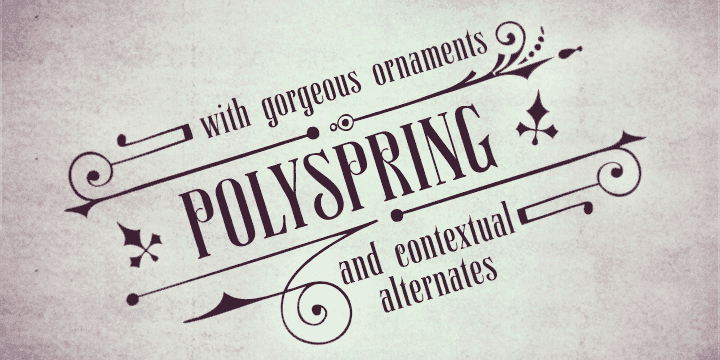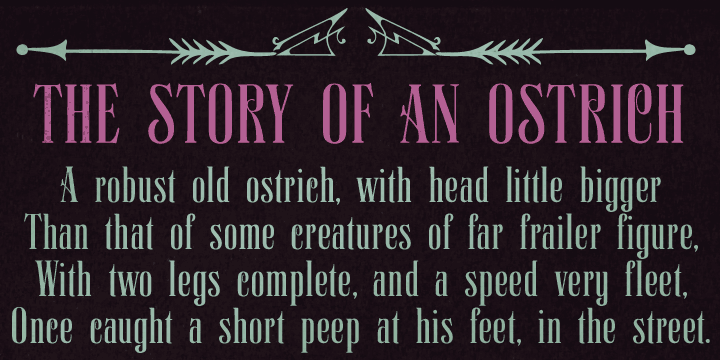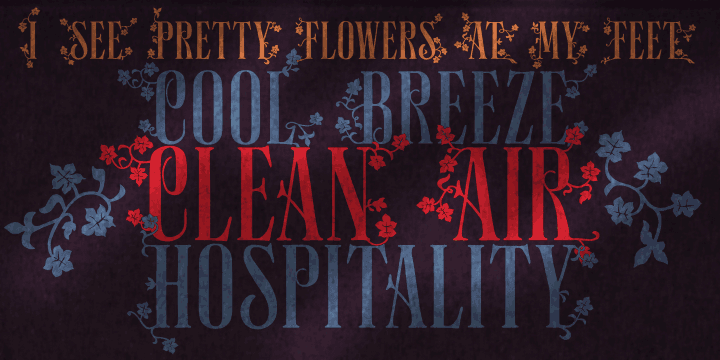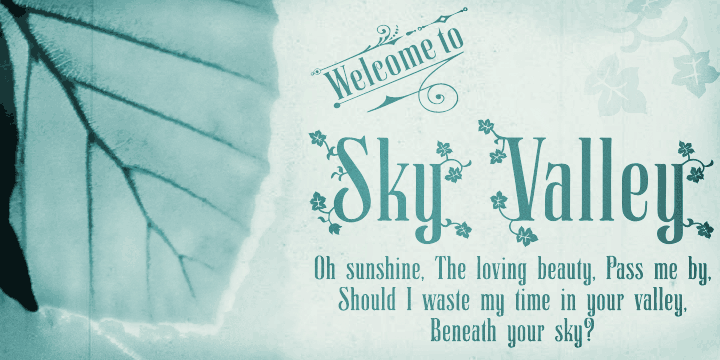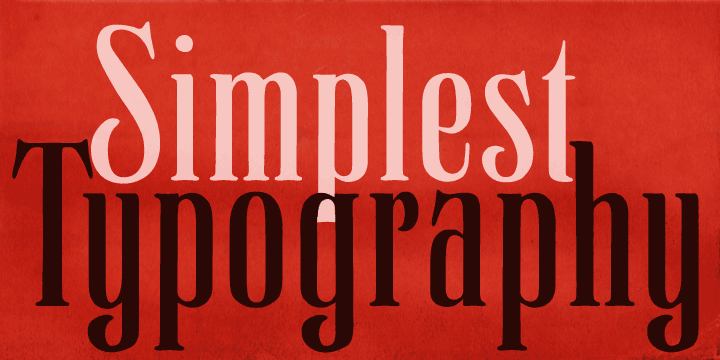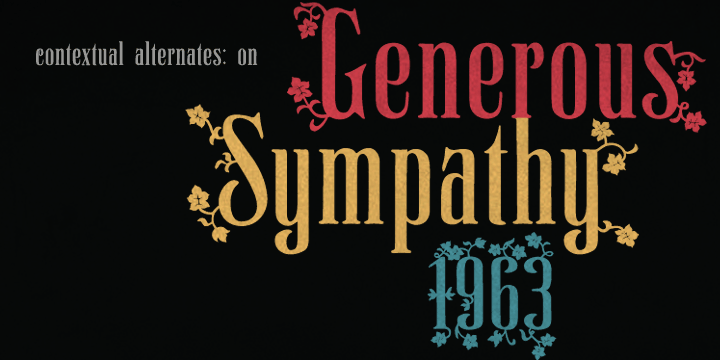
Polyspring is a display serif and art nouveau font published by PintassilgoPrints.
Polyspring is a handcrafted serif display font with a cool flowery flair.
It was hand-drawn based on Italia Condensed typeface from Keystone Foundry, from circa 1906. Loaded with stylish ornaments and flourishing alternates for all its letters and numbers, this font is a terrific toolbox for display applications. Yet, it has the superpower of replacing the first and last letters of words to its germinated alternates at the click of a button, thanks to the smart OpenType programming.